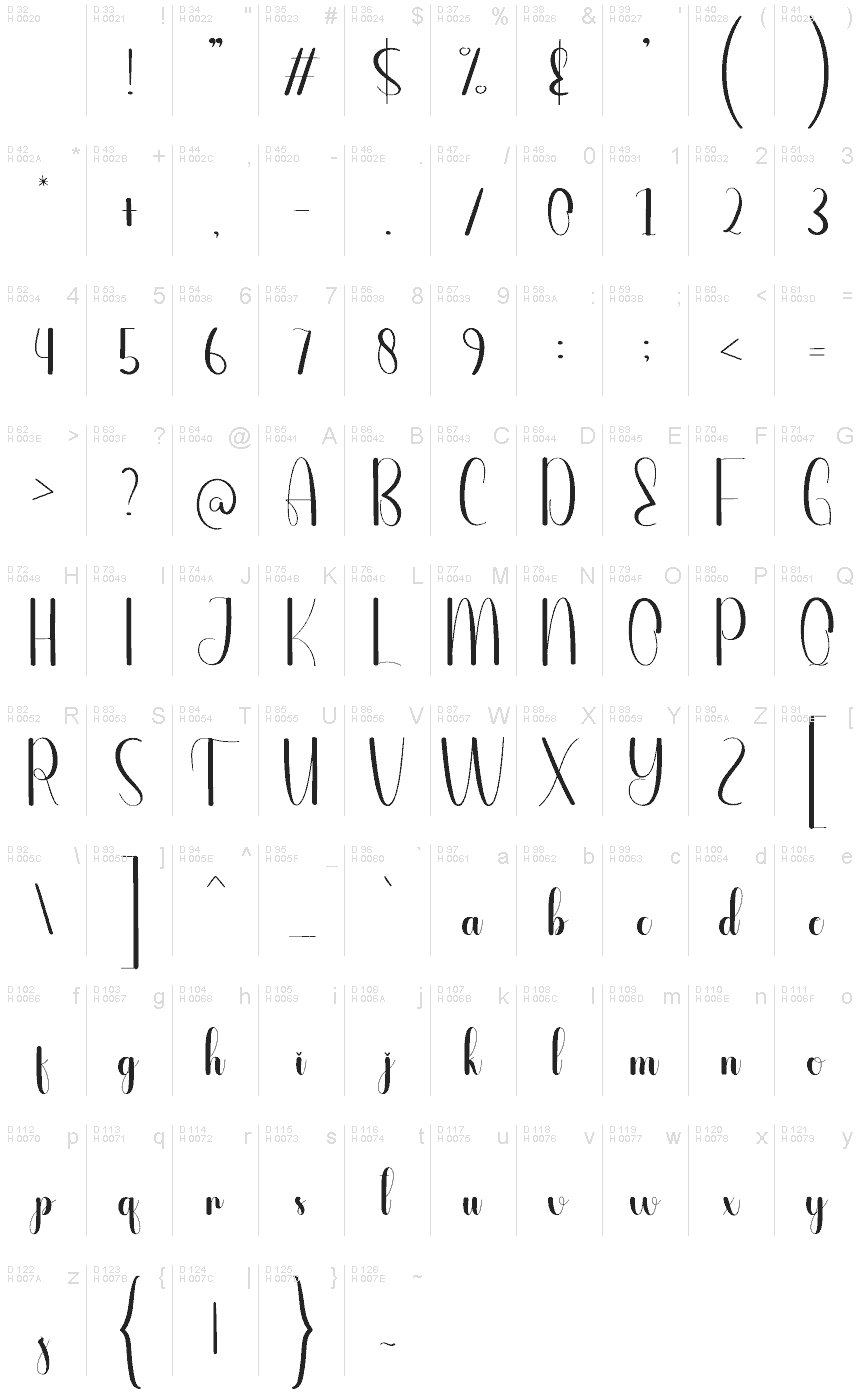
Afraid
Afraid font by Andi Moz is a free calligraphy font that features an elegant and sophisticated appearance. Its flowing style and expressive feel make it a contemporary option for modern audiences. With a condensed structure, the visual handwritten effect will be more evident when used at large sizes.